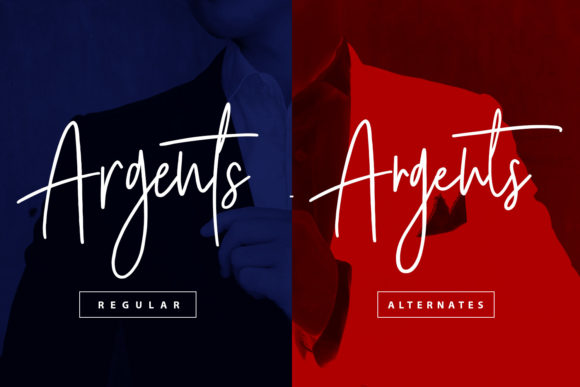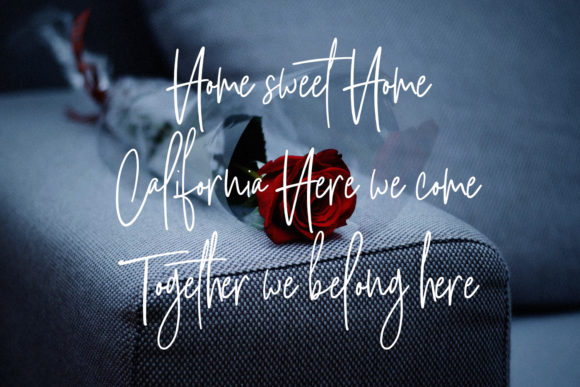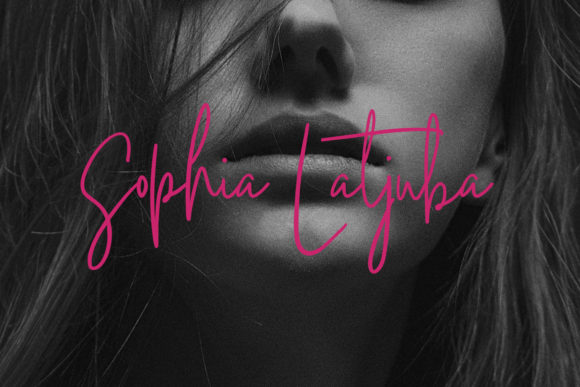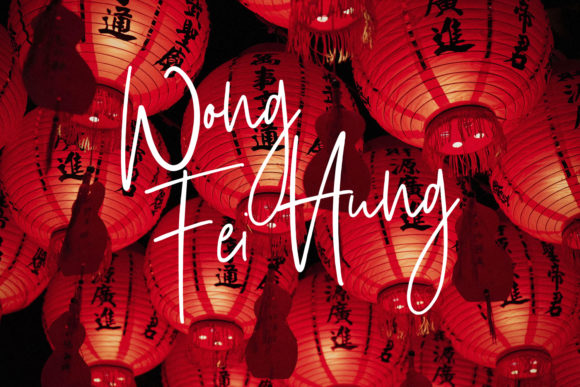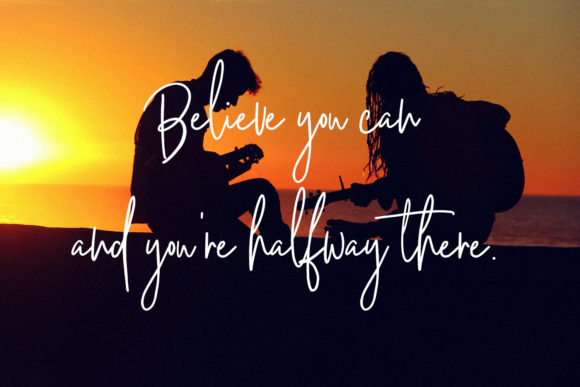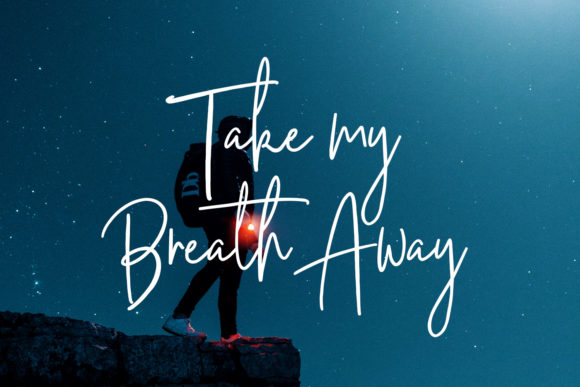
The Perfect Brushstroke: Unleashing Your Creativity with Argents Font
Have you ever stared at a blank canvas, waiting for the perfect spark to ignite your creativity? It’s that moment when the words start flowing, and your design idea begins to take shape. You envision a beautiful, handwritten script that transports your audience to a world of elegance and sophistication.
Enter Argents Font, a luxurious handwritten font that captures the essence of authenticity. Designed to turn any design idea into a true standout, Argents Font offers a unique blend of casual charm and refined elegance. With its versatility, it’s the perfect tool for designers seeking to add a personal touch to their work.
Whether you’re a seasoned pro or just starting out, Argents Font is a valuable asset to have in your design arsenal. Its ability to evoke emotions and create connections with your audience makes it a must-have for any creative project.
Key Features of Argent Font
- Unique Characteristics: Argent Font features a modern, sleek design with a subtle texture, giving it a sophisticated and elegant look. The font also includes a range of ligatures and swashes, adding an extra layer of flair to designs.
Designer Review: Argents Font
Overall, I found Argents Font to be a decent choice for various design projects. It has a unique and elegant aesthetic that can add a touch of sophistication to any layout. ✨ One of the standout features is its beautiful, flowing lines that make it perfect for titles and headings.
- Beautiful, elegant aesthetic
- Perfect for titles and headings
- Works well in digital and print media
However, there are some limitations to consider. ✠️ Argents Font is not suitable for body text, as it can be difficult to read in smaller sizes. Additionally, it may not be the best choice for projects that require a bold, attention-grabbing font.
- Not suitable for body text
- May not be ideal for bold, attention-grabbing projects
- Requires careful font size adjustment
Overall, I would recommend Argents Font for projects where a touch of elegance is needed, but be aware of its limitations.
Tips for Getting the Most Out of Argents Font
Argents Font is a versatile font that can be used in a variety of design contexts. Here are some tips for getting the most out of it:
- Use Argents Font for headings and titles to add a touch of elegance and sophistication.
- Combine Argents Font with other fonts to create a unique and visually appealing design.
- Experiment with different font sizes and styles to create a sense of hierarchy and emphasis.
Argents Font is commonly used in:
- Choose a high-end paper or cardstock for the invitation.
- Set Argents Font as the primary font in your design software.
- Use the font to create a beautiful header or title for the invitation.
- Gold or silver foil stamping for added luxury.
- Custom illustrations or watercolor designs to match the wedding theme.
- Subtle texture overlays to give the invitation a tactile feel.
- Choose a distressed or worn texture to give the poster a vintage feel.
- Set Argents Font as the primary font in your design software.
- Use the font to create a bold headline or title for the poster.
- Distressed or worn images to match the vintage theme.
- Warm color palettes to evoke a sense of nostalgia.
- Subtle patterns or textures to add depth and interest.